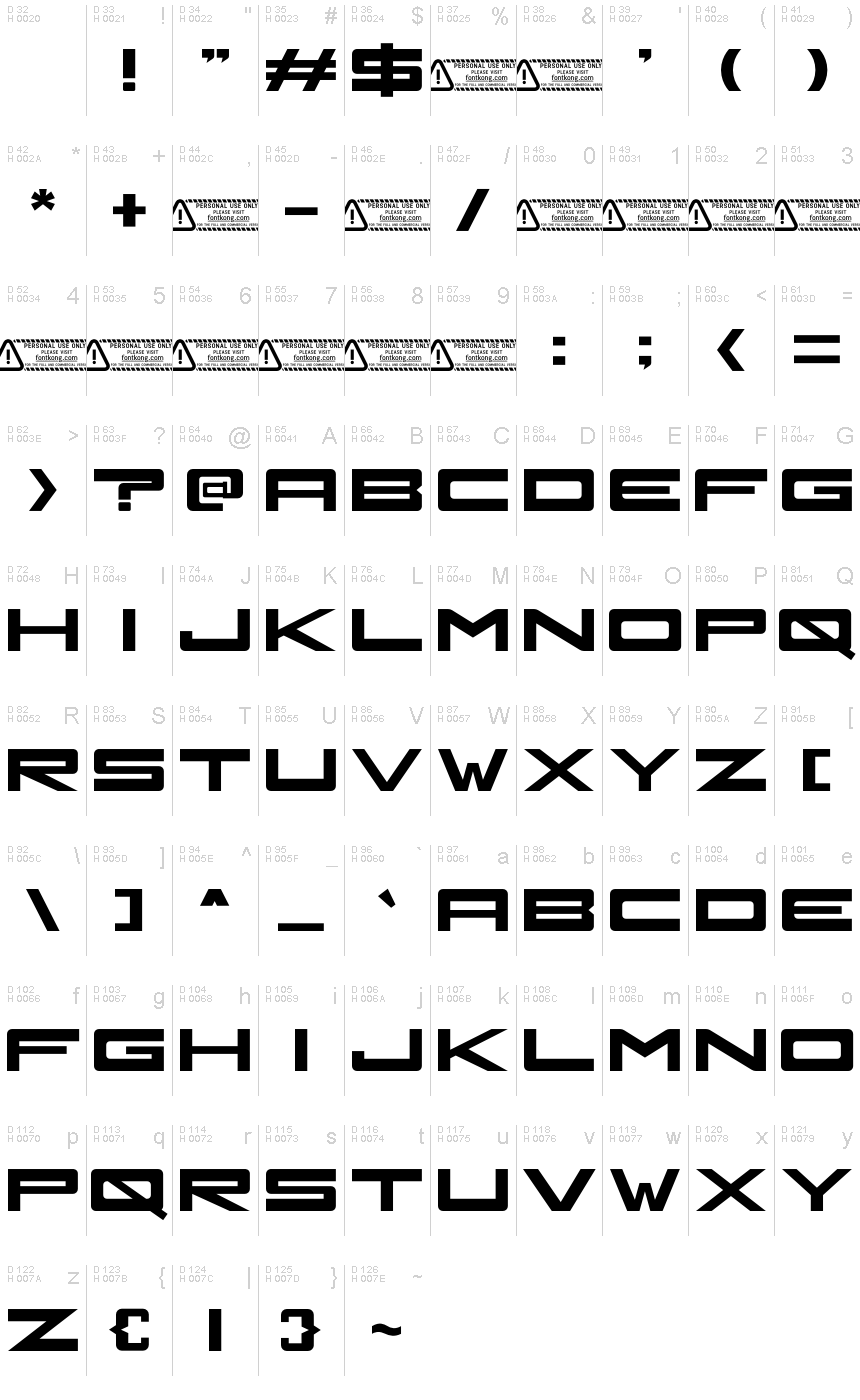
Neons
NEONS is a display font that epitomizes the bold, futuristic aesthetic. Designed by Kong Font, this expansive typeface exudes a striking, neon-inspired presence that commands attention. The distinct, angular letterforms and robust, amplified proportions lend it a captivating, avant-garde flair.
NEONS is primed to elevate any design project that seeks to convey a sense of technological prowess, modern edge, or unbridled energy. Its forceful, attention-grabbing personality makes it an ideal choice for headlines, posters, branding, and other high-impact applications where visual impact is paramount.
Whether used alone or paired with complementary typefaces, NEONS promises to infuse any design with a mesmerizing, future-forward allure.